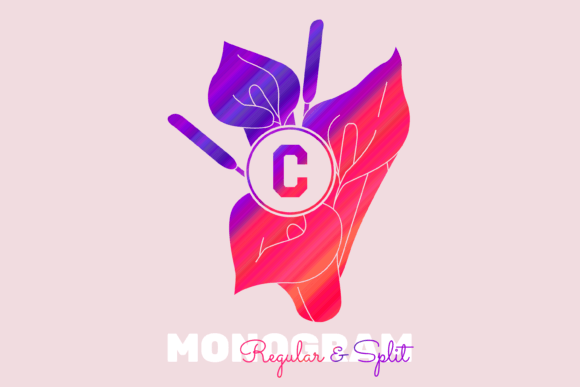
The Elegance of Calla Lily Font: A Designer’s Delight
I still remember the time I was working on a wedding invitation project, and my client asked for a font that exuded elegance and sophistication. I scoured the internet, tried out countless fonts, but nothing seemed to fit the bill. That was until I stumbled upon the Calla Lily Font. It was love at first sight! 💕 The intricate details, the flowing curves, and the overall aesthetic of this font made it the perfect choice for my project. In this article, I’ll share with you why I’m obsessed with the Calla Lily Font and how you can make the most of it in your designs.
A Closer Look at Calla Lily Font
Calla Lily is an elegant botanical decorative font that consists of two styles: regular and split. This font is ideal for adding a special touch to your crafts, whether you’re a designer, crafter, or creative hobbyist. Its unique and intricate design makes it perfect for custom designs, DIY crafts, and any creation that requires a lovely touch.
Here’s what I love about Calla Lily Font:
- ✨ Elegant and sophisticated design
- ✅ Highly versatile and can be used for various design projects
- 💐 Beautifully crafted with intricate details
- 📚 Comes in two styles: regular and split
And here are some minor quirks to keep in mind:
- 🤔 May not be suitable for body text due to its decorative nature
- ⚠️ Some characters may not be suitable for use at small font sizes
The Backstory of Calla Lily Font
The Calla Lily Font was designed by a team of skilled typographers who were inspired by the beauty of calla lilies. The font’s intricate details and elegant curves were carefully crafted to evoke the sophistication and luxury of these stunning flowers. Whether you’re a designer, crafter, or creative hobbyist, Calla Lily Font is sure to add a touch of elegance to your designs.
| What is Calla Lily Font? | Calla Lily Font is an elegant botanical decorative font consisting of duo styles (regular & split). |
| What is Calla Lily Font used for? | Calla Lily Font is ideal for adding special decoration to your crafts, custom designs, DIY projects, and any creation that requires a lovely touch. |
| Is Calla Lily Font suitable for body text? | No, Calla Lily Font is a decorative font and may not be suitable for body text due to its intricate design. |